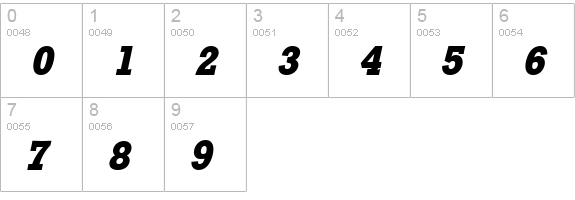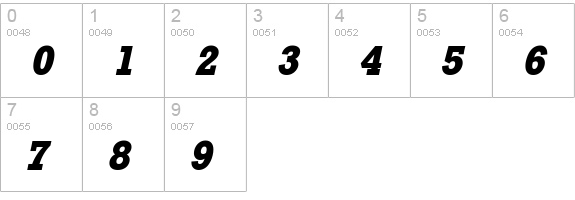
Stamford Heavy SF Bold Italic Font Details
Stamford Heavy SF Bold Italic is a heavy, high-impact, italic variant in the Stamford typeface family \xE2\x80\x94 well suited to high-impact headlines, posters, and display advertising.
Stamford Heavy SF Bold Italic font is a striking and bold typeface that exudes confidence and power. With its strong and slanted letterforms, this font commands attention and makes a statement in any design project. Designed with meticulous attention to detail, Stamford Heavy SF Bold Italic effortlessly combines elegance with a touch of edginess, making it a perfect choice for headlines, logos, and branding materials. Its bold and italic style adds a sense of dynamism and energy to any text, making it stand out from the crowd. Not only does Stamford Heavy SF Bold Italic font possess a visually appealing aesthetic, but it also offers versatility and flexibility. Whether you're working on a modern website design, a print advertisement, or a magazine layout, this font will adapt seamlessly to any context, enhancing the overall visual impact. What sets Stamford Heavy SF Bold Italic apart is that it is not only a high-quality font, but it is also free. Yes, you read that right! This stunning typeface is freely available for download at FontsMarket.com. Now you can add a touch of sophistication and boldness to your designs without breaking the bank. So why wait? Download Stamford Heavy SF Bold Italic font today and elevate your design projects to new heights. Whether you're a professional designer or a typography enthusiast, this font will undoubtedly become an indispensable tool in your creative arsenal. With its free availability and exceptional design, Stamford Heavy SF Bold Italic is a must-have font for anyone seeking to make a lasting impression.